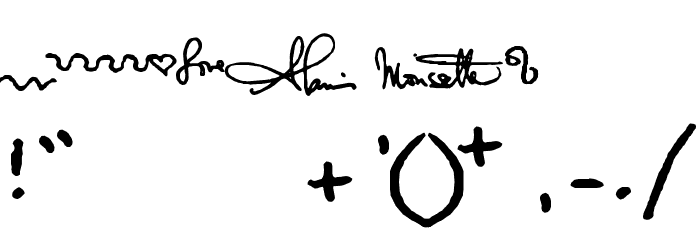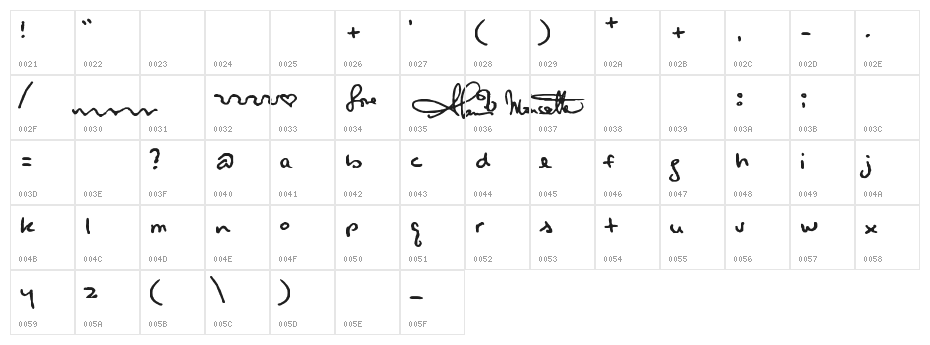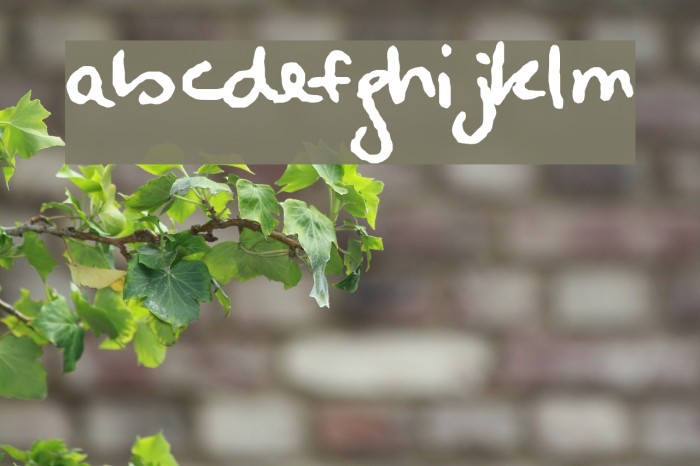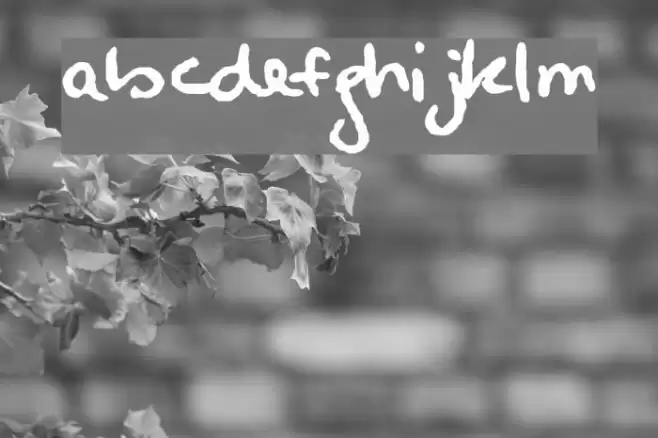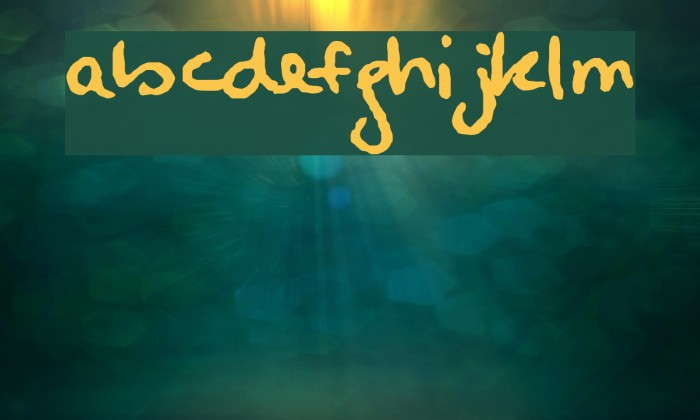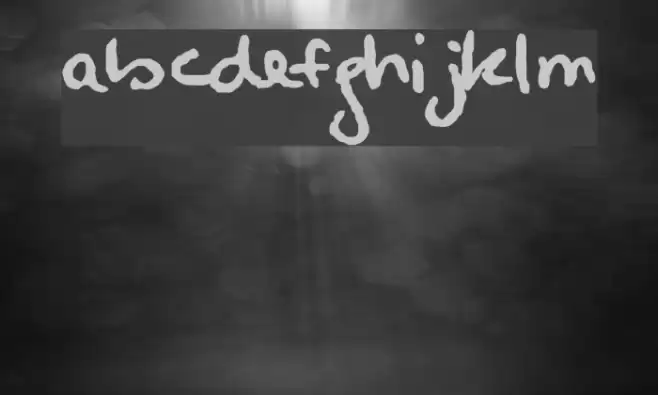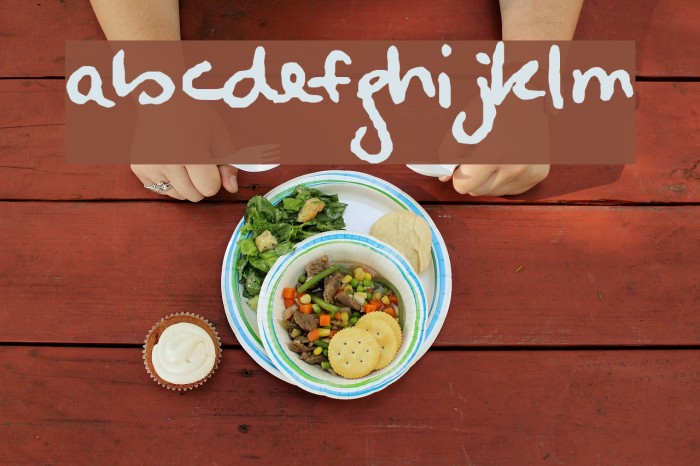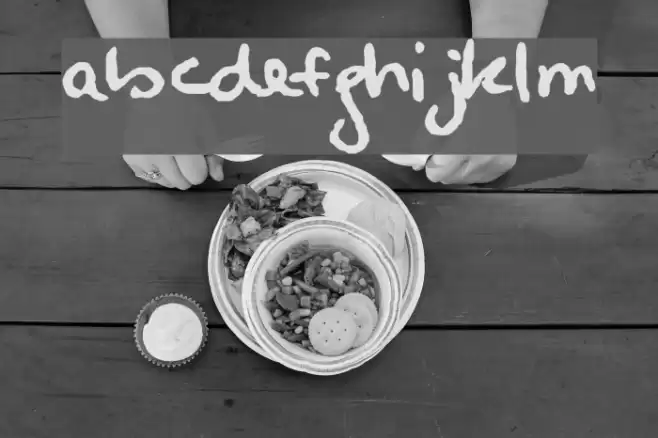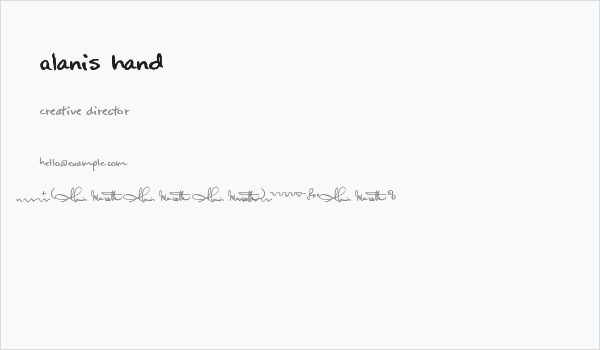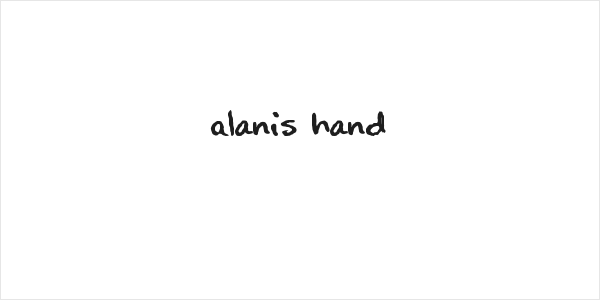
Alanis Hand Font
Alanis Hand Description
This font exudes a casual, handwritten style with a playful and organic feel. The characters are fluid and slightly irregular, giving it a personal touch reminiscent of a quick note or a personal letter. The strokes are consistent in thickness, maintaining a medium contrast that adds to its legibility while preserving the handwritten charm. The spacing between characters is normal, allowing for easy readability without losing the informal aesthetic. This style is perfect for projects that require a personal or creative touch, such as invitations, greeting cards, or artistic branding.
| Overall Style | Casual, Organic |
| Use Case | Invitations, Greeting cards, Artistic branding |
| Proposed Projects | Ideal for invitations, greeting cards, artistic branding, and personal notes. |